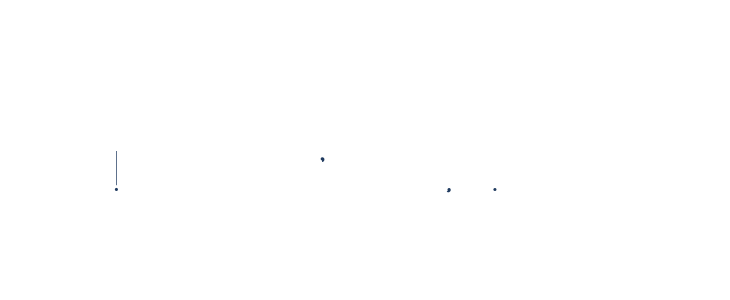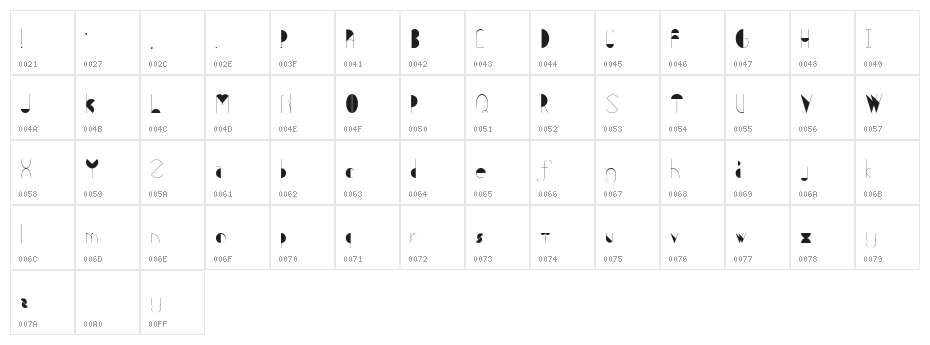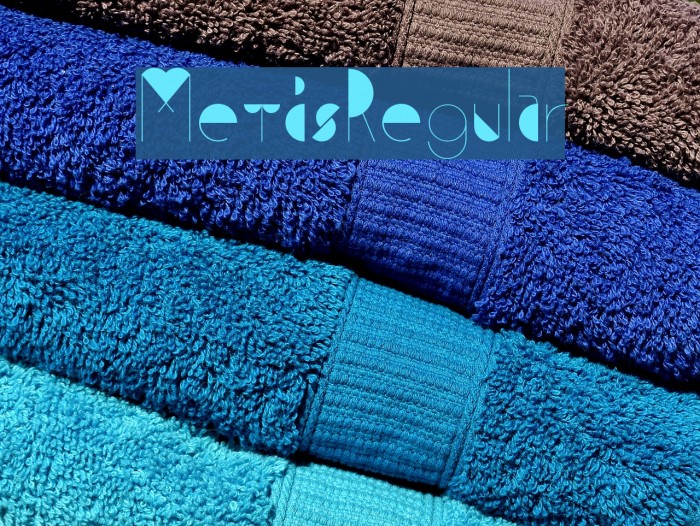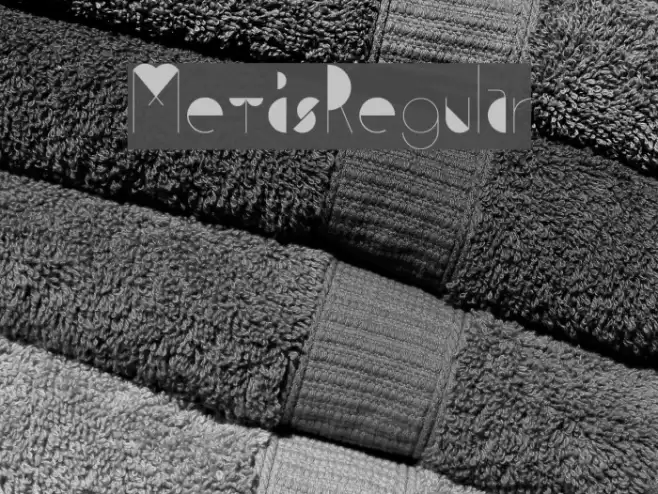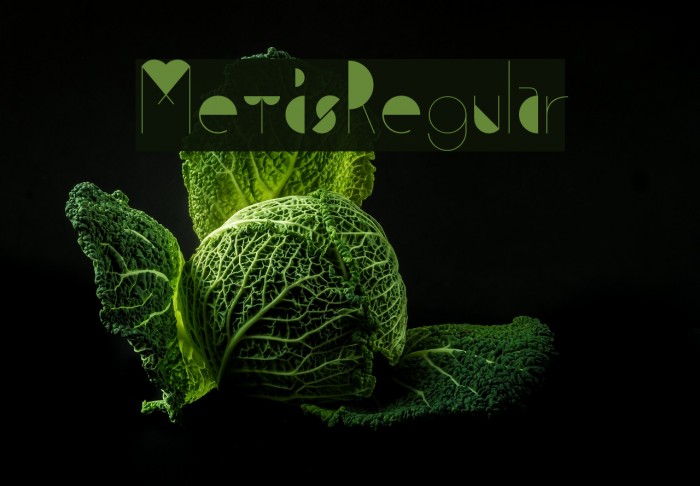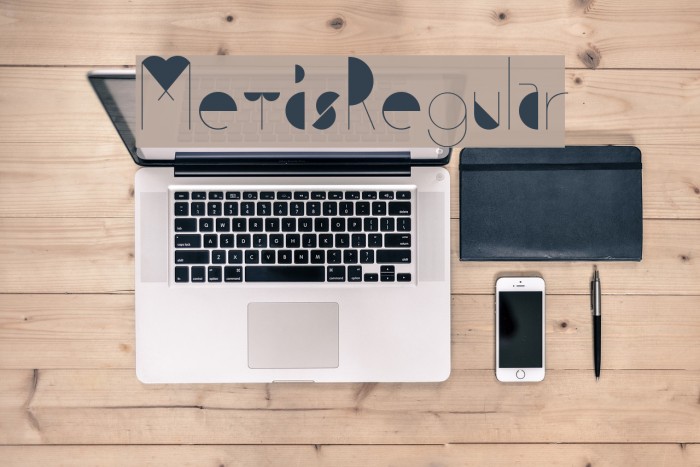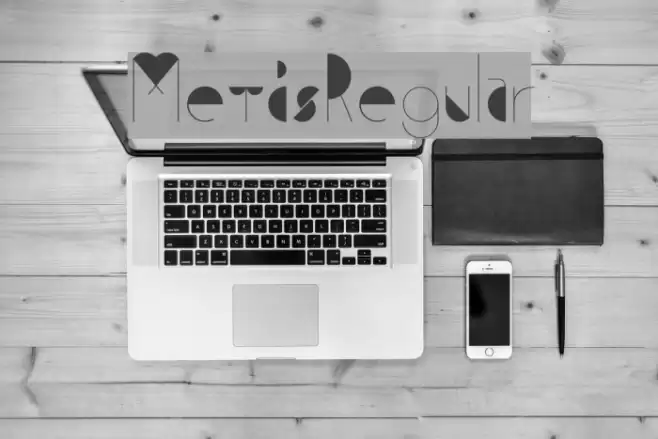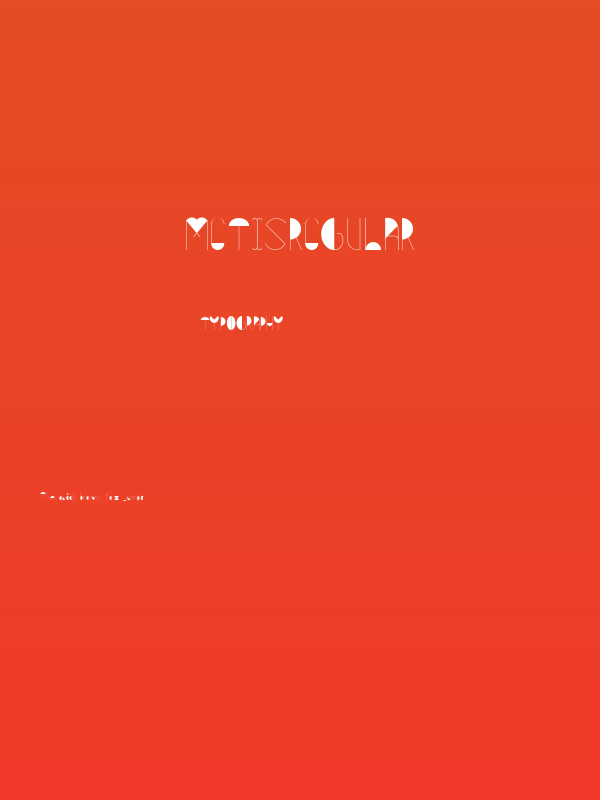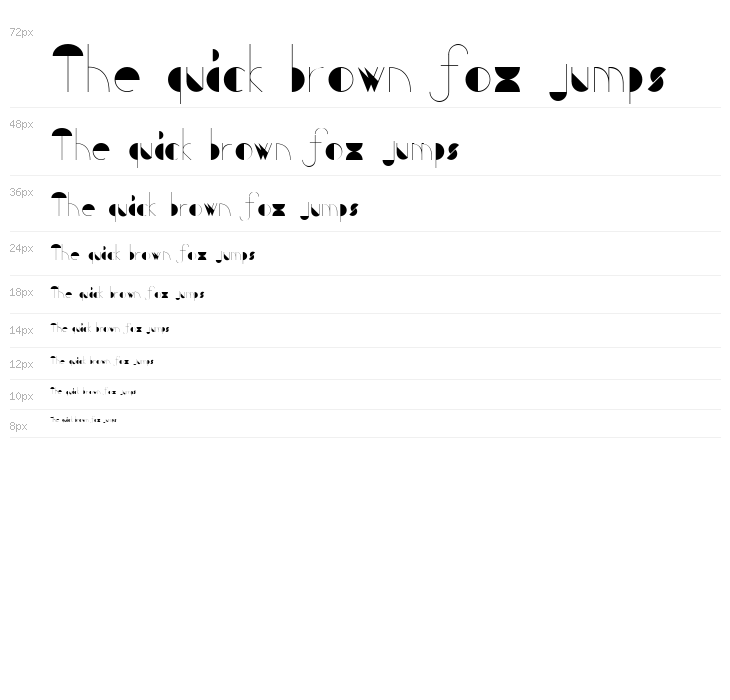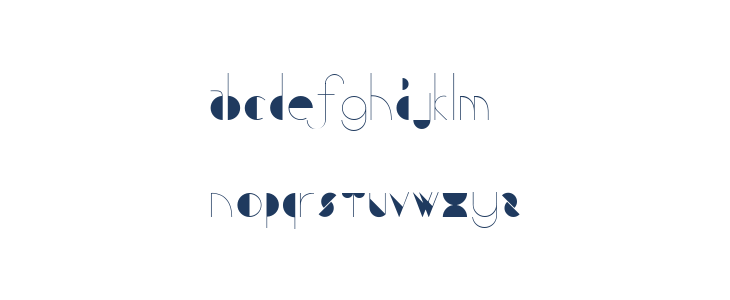
MetisRegular Font
MetisRegular Description
This font features a unique blend of geometric and abstract elements, creating a visually striking and modern appearance. The uppercase letters are characterized by bold, solid shapes with a mix of curves and straight lines, while the lowercase letters maintain a more delicate and airy feel. The font showcases a high level of contrast between thick and thin strokes, adding to its dynamic and eye-catching nature. The characters are designed with a sense of playfulness and creativity, making it suitable for artistic and contemporary projects. The spacing between characters is generally tight, enhancing the compact and cohesive look of the text.
| Proposed Projects | Ideal for branding, posters, album covers, and creative digital designs. |